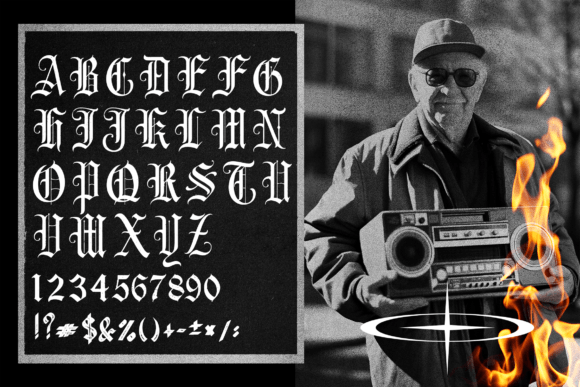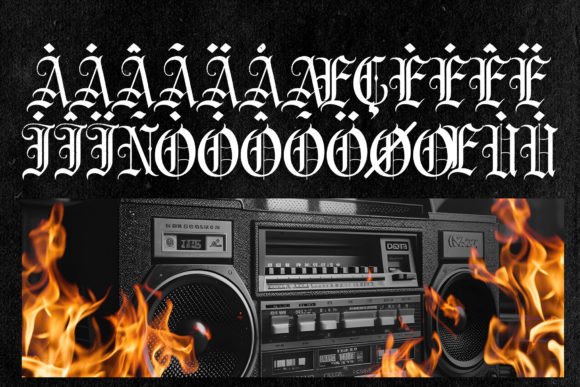
Mognus Font: Bold Blackletter Fonts for Creative Logo Design
About the Mognus Font
Step up your design game with Mognus Font, a font that exudes confidence and style. Mognus is a captivating blackletter font exuding elegance and sophistication. Its intricate strokes and sharp angles evoke a sense of timeless beauty and authority. Ideal for formal invitations, branding, and editorial designs, Mognus commands attention and infuses any project with a touch of classic refinement and style.
Mognus excels in applications requiring strong visual impact, such as logos, headlines, and short-form text on posters or packaging. Its elegant nature makes it suitable for high-end branding projects conveying luxury or heritage. However, its intricate detail makes it unsuitable for body text or UI elements where readability is paramount. Long paragraphs set in Mognus would be visually overwhelming and difficult to read.
Pairing Mognus effectively requires considering its strong personality. A clean, geometric sans-serif like Montserrat or a neutral serif such as Garamond would provide a sophisticated contrast and enhance readability in supporting text. For a more modern feel, a minimalist sans-serif like Lato could create a balanced composition.
Its core personality is undeniably authoritative and elegant, lending itself to brands needing to project sophistication and prestige. Avoid pairing with playful or overly casual fonts; maintaining a consistent level of formality is crucial to maximizing its impact.